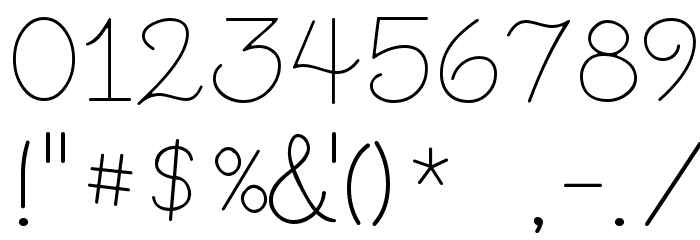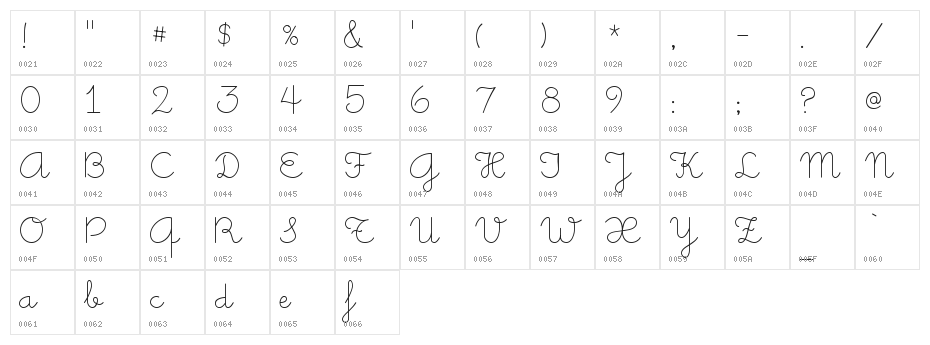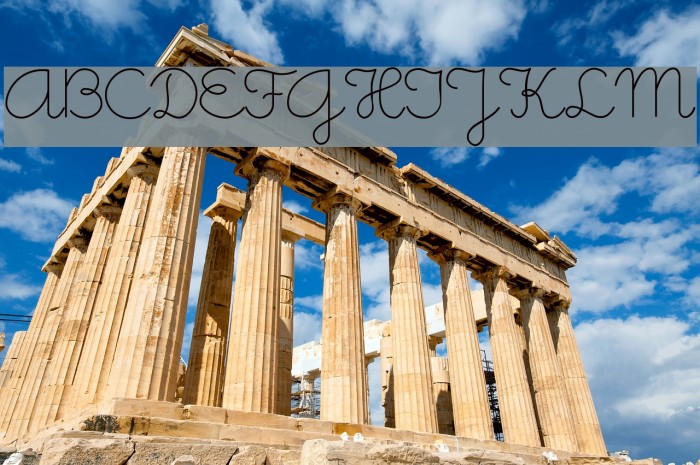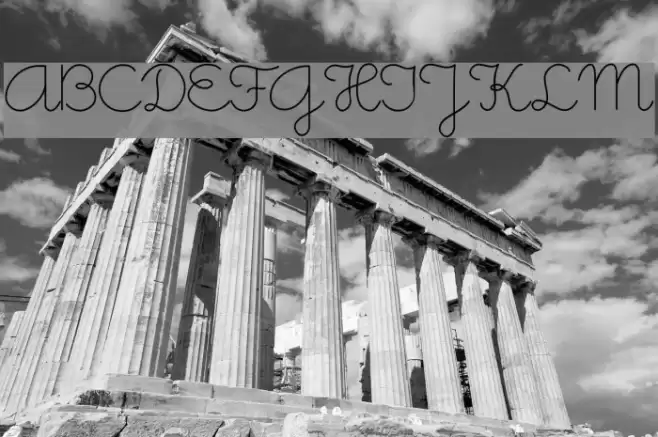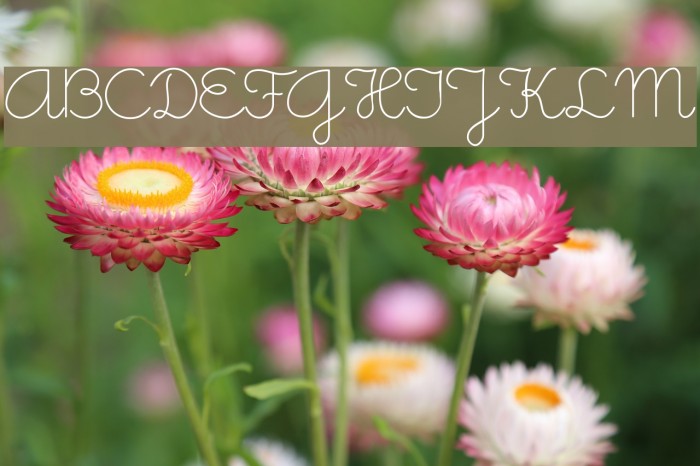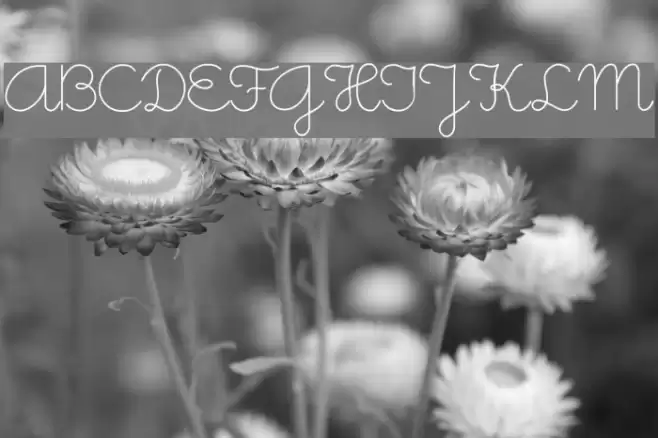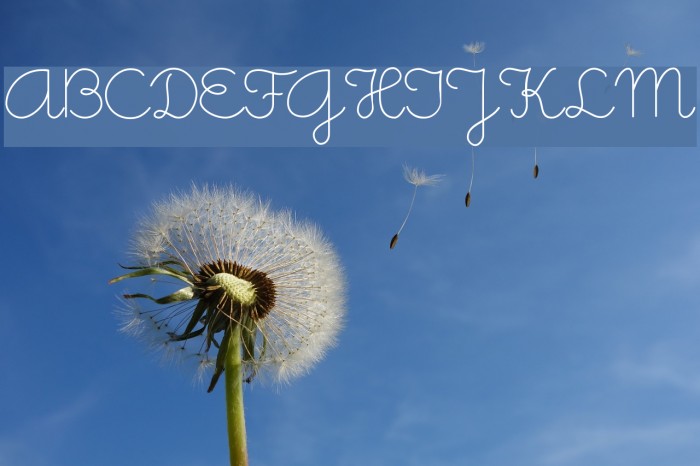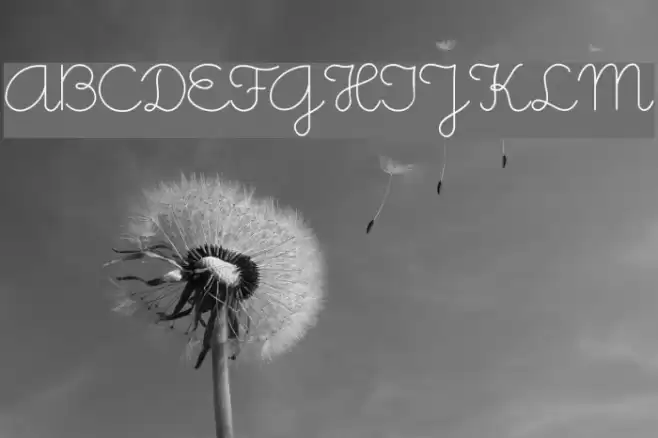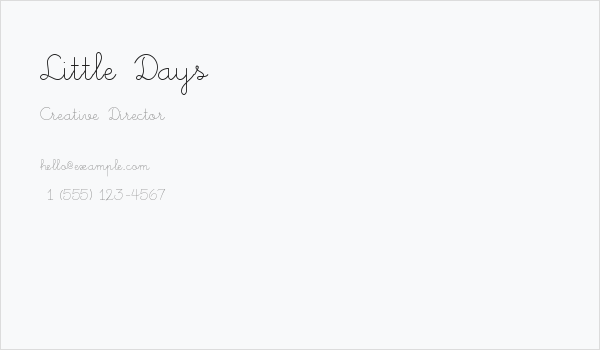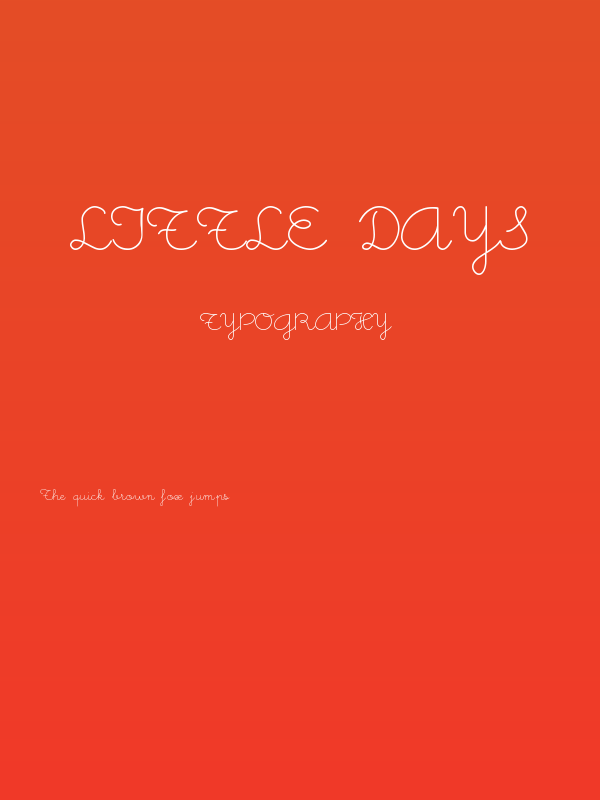
Little Days Font
Little Days Description
This font features a charming, handwritten style with a playful and whimsical touch. The characters are elegantly connected, giving it a cursive appearance that flows smoothly across the page. The uppercase letters maintain a consistent height, while the lowercase letters exhibit a slight slant, enhancing its casual and friendly demeanor. The numerals and special characters are crafted with the same fluidity, ensuring a cohesive look throughout. Its thin strokes and rounded edges contribute to a delicate and airy feel, making it ideal for projects that require a personal and approachable aesthetic.
A playful, handwritten cursive font with elegant, flowing characters from Handwritten fonts.